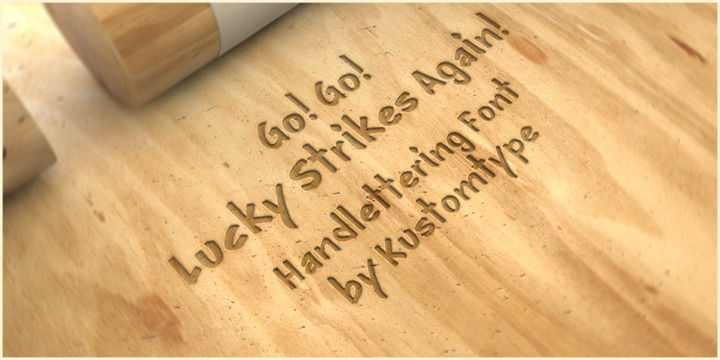
Luckystrikes Font
Luckystrikes Font is perfect for vintage advertising, retro gaming graphics, classic car branding, nostalgic packaging design, old-school movie posters, diner signage, rockabilly event materials, vintage clothing brands, classic motorcycle graphics, and mid-century modern designs.
Luckystrikes Font is exciting because it perfectly captures the bold spirit and optimistic energy of mid-20th century American design, creating a typeface that instantly transports viewers to an era of classic style and confident expression. This font brings nostalgic charm and timeless appeal to any project, making it ideal for brands that want to convey heritage, authenticity, and classic American spirit. Its strong character and vintage personality create an immediate emotional connection with audiences who appreciate retro aesthetics.
Luckystrikes Font family includes regular, bold, condensed, and outline variations, along with decorative elements and period-appropriate ornaments, providing designers with versatile options for creating authentic vintage-inspired typography and branding systems.
This distinctive retro typeface combines classic American signage traditions with contemporary design functionality, making Luckystrikes Font Free Download an exceptional choice for projects celebrating vintage culture and timeless style. The font's carefully crafted letterforms feature authentic period details and proportions that honor the golden age of American graphic design.
Whether you're designing vintage brand identity, retro event materials, or classic-inspired packaging, Luckystrikes Font delivers unmatched authenticity and visual impact. The font performs beautifully across all applications, from large-scale environmental graphics to detailed product labeling where vintage character is essential.
Creative professionals choose Luckystrikes Font for its ability to instantly establish vintage credibility while maintaining excellent readability in contemporary applications. The font's nostalgic character makes it particularly effective for brands emphasizing heritage, craftsmanship, and classic American values.
Each letterform reflects the confident stroke work and bold presence of classic mid-century signage, featuring proper weight distribution and authentic styling that creates genuine vintage atmosphere.